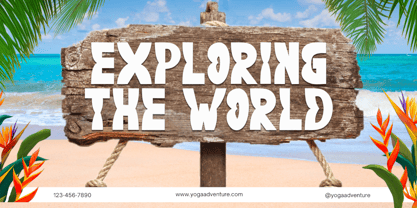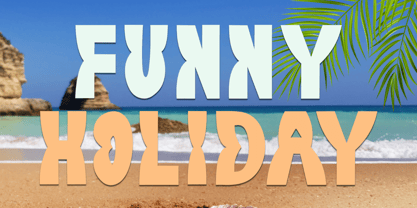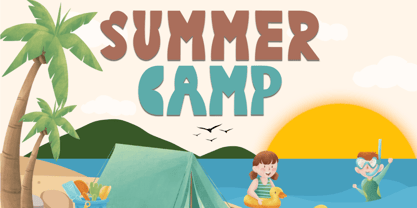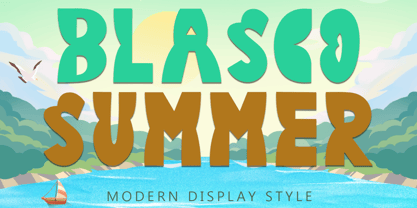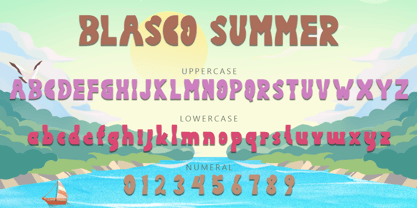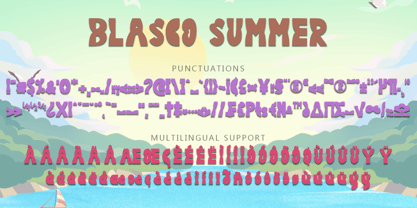
Blasco Summer
by Yoga Letter
The Blasco Summer Font Family was designed by Isroni Yoga Prasetya and published by Yoga Letter. Blasco Summer contains 1 styles.
"Blasco Summer" is a unique and elegant display font. This font is equipped with uppercase, lowercase, numerals, punctuations and multilingual support. It is very suitable for banners, posters, prints, branding, stickers, summer, holiday, spring, camping, holiday, vacations and others.